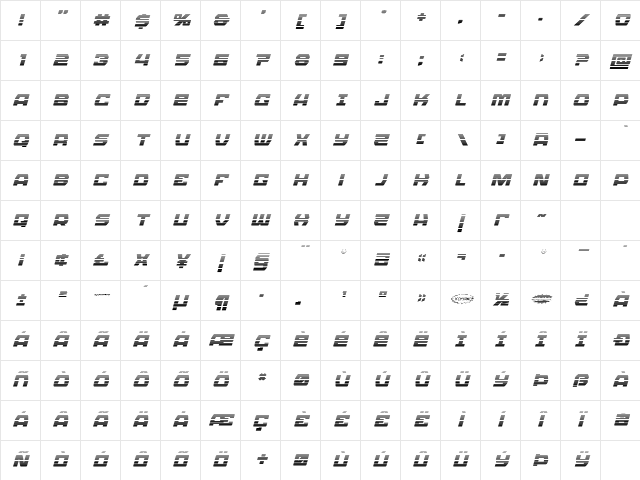
Olympic Carrier Gradient Italic
Design Context for Olympic Carrier Gradient
Olympic Carrier Gradient is a composed and adaptable typeface that performs quietly and consistently across a wide range of design contexts. The slanted form adds forward momentum and visual energy.
Pro Tip: Use Olympic Carrier Gradient for emphasis, pull quotes, and subheadings where its slanted energy can add rhythm to the layout.